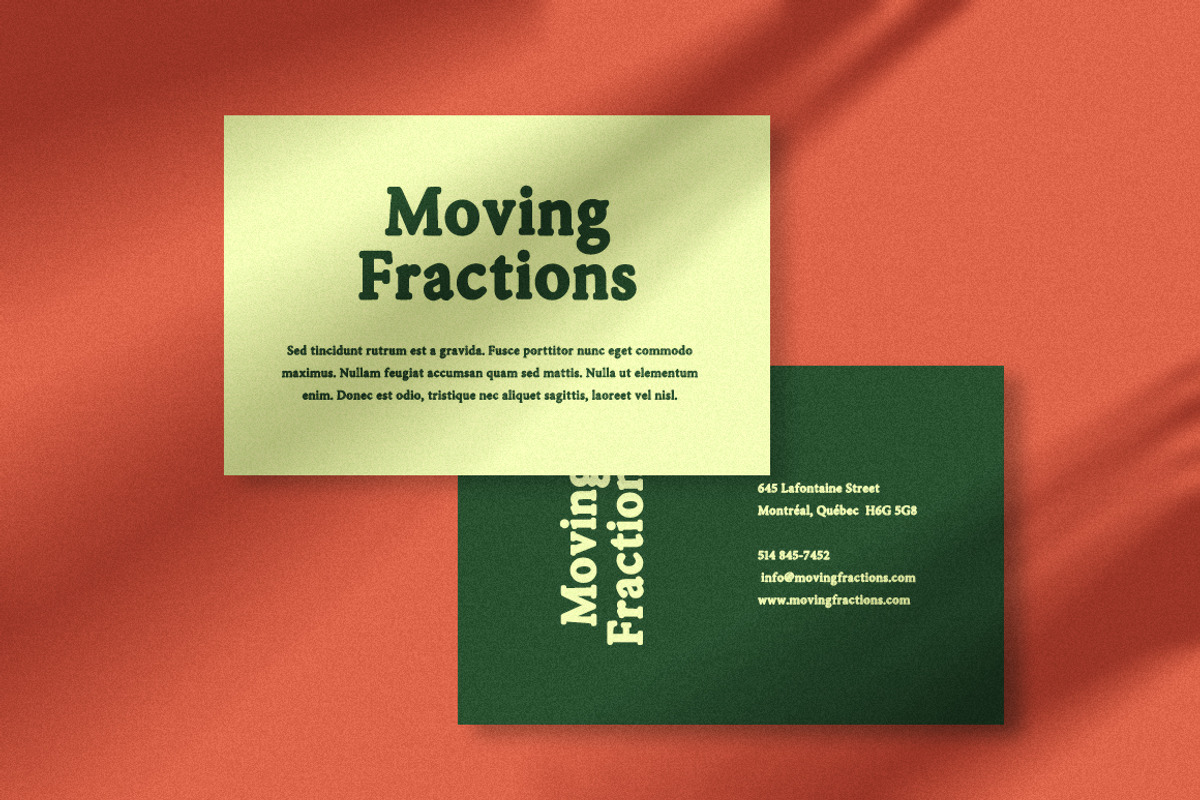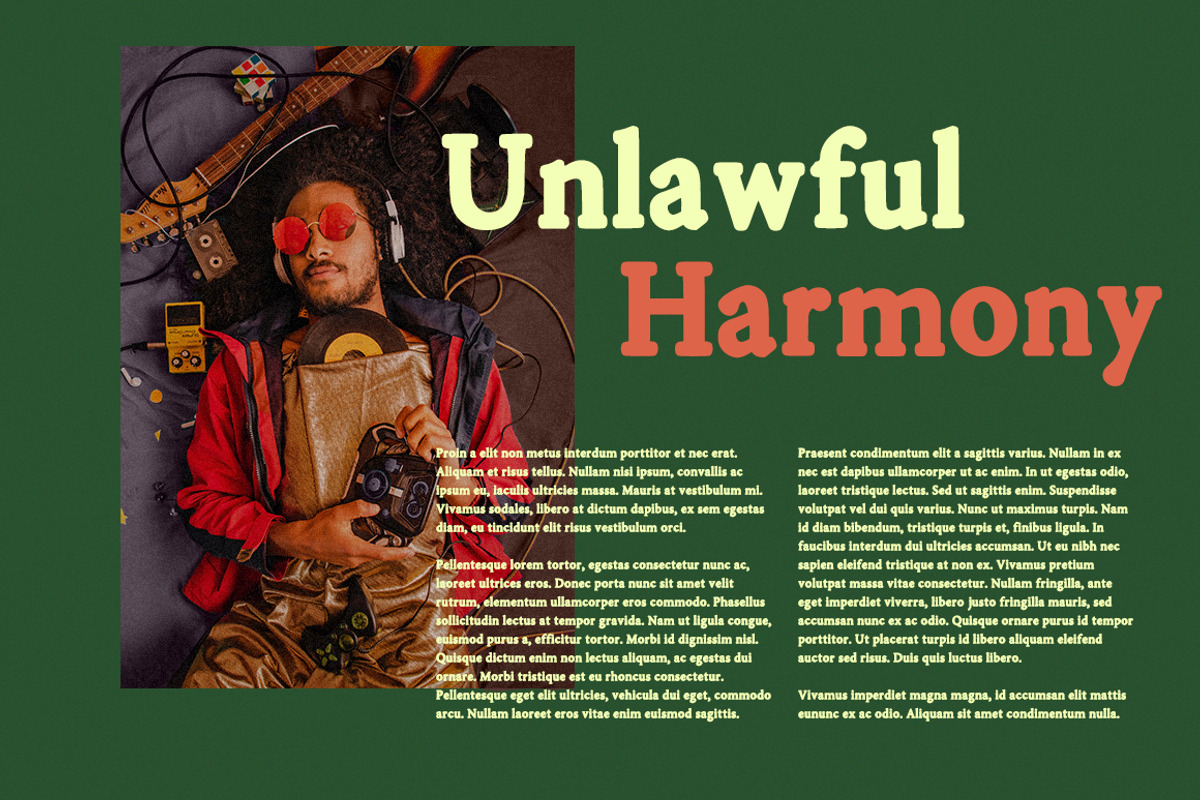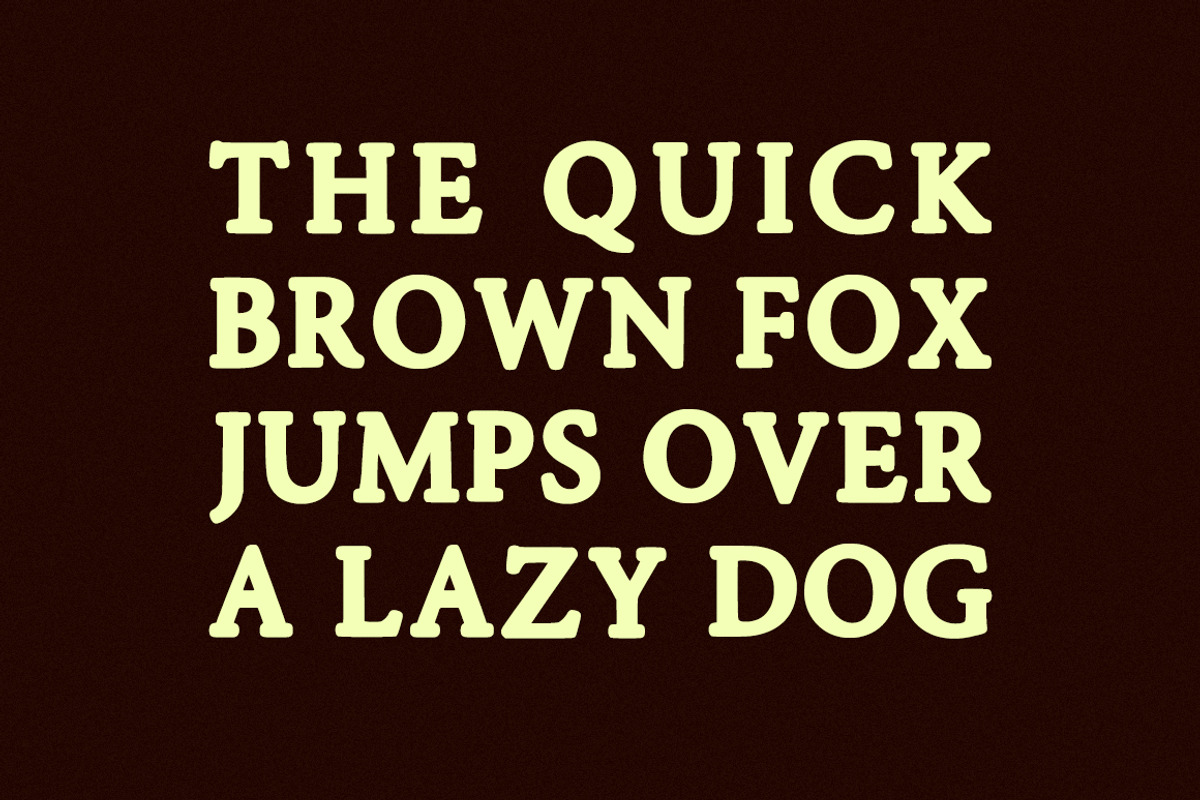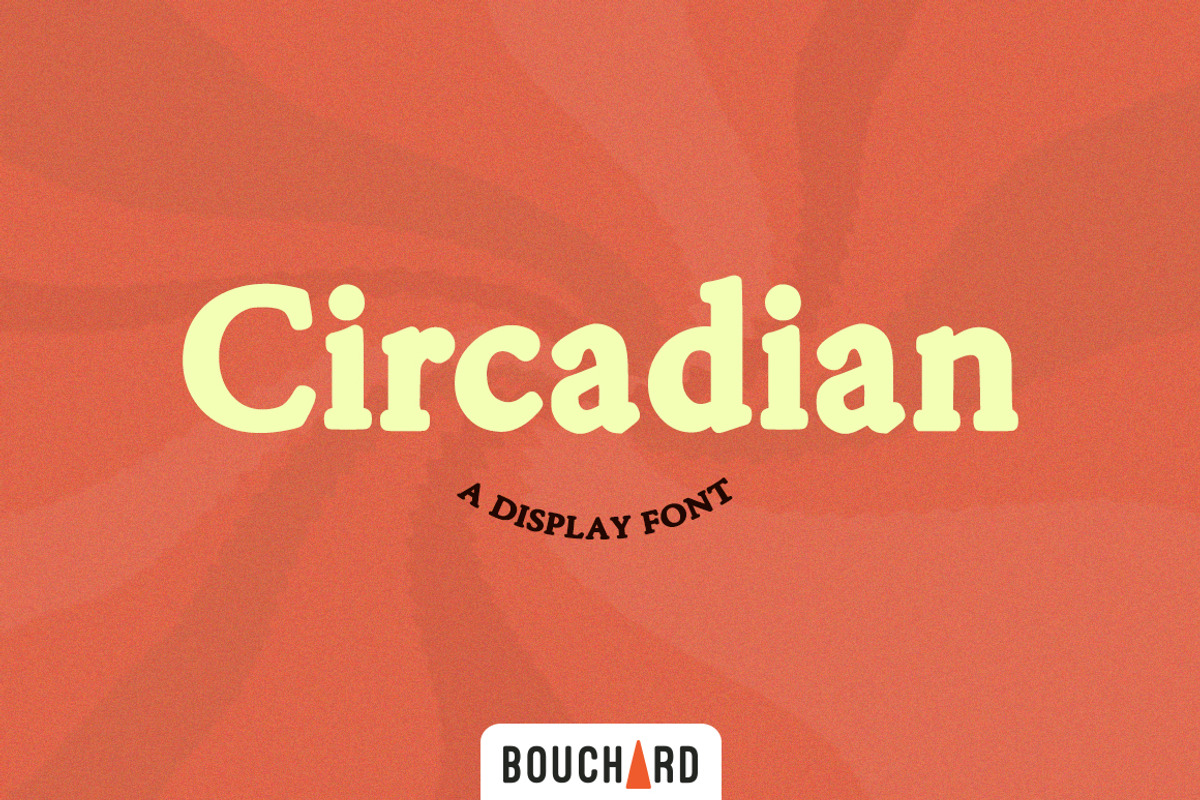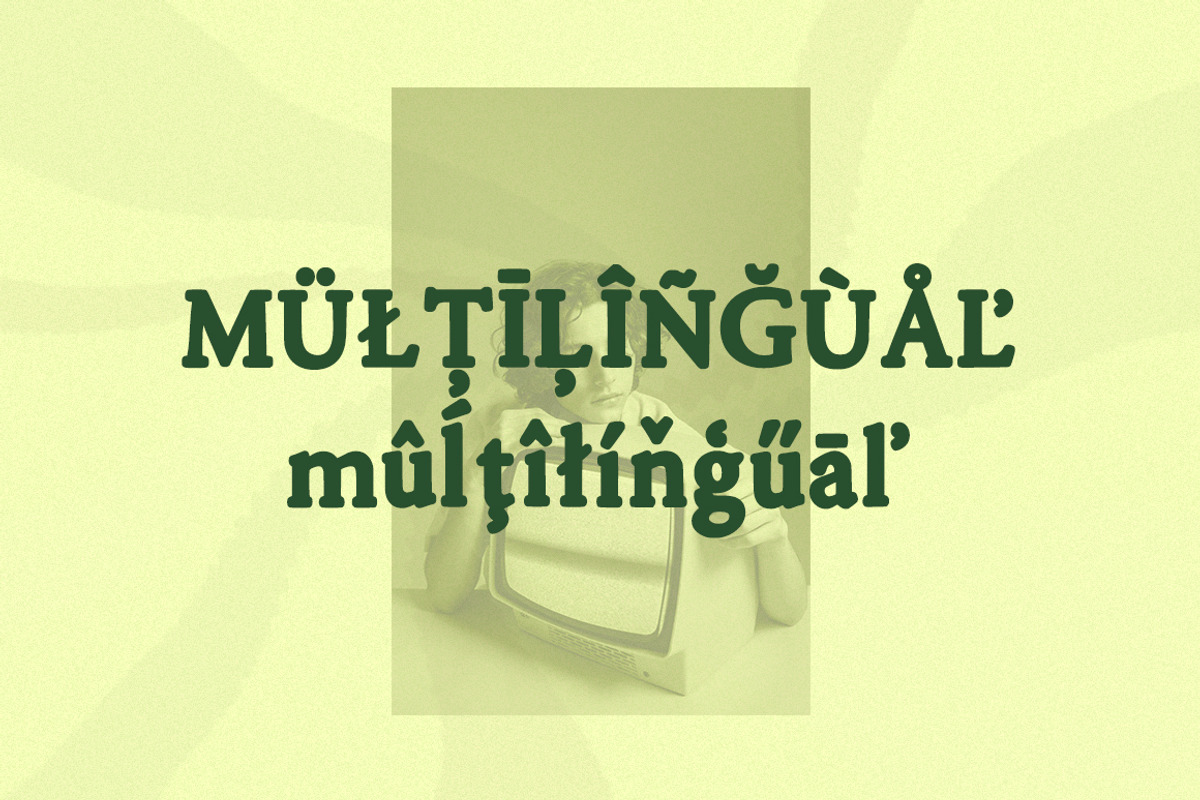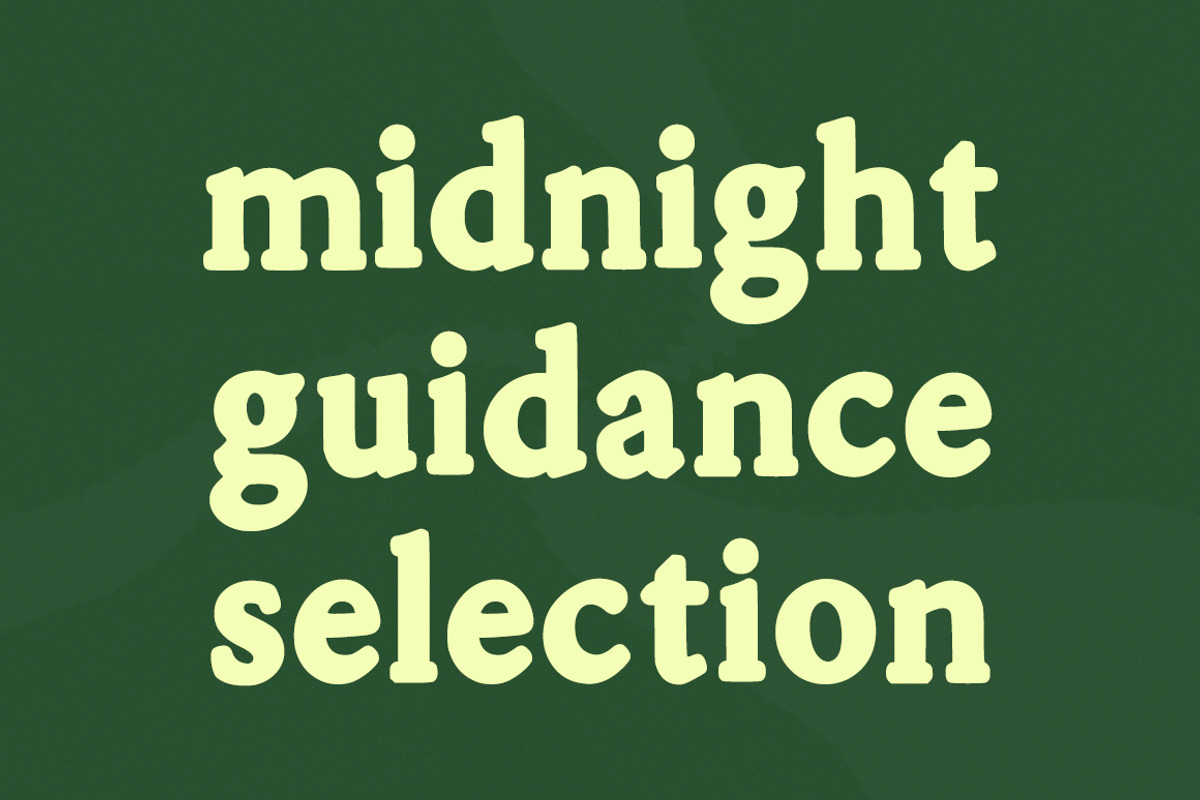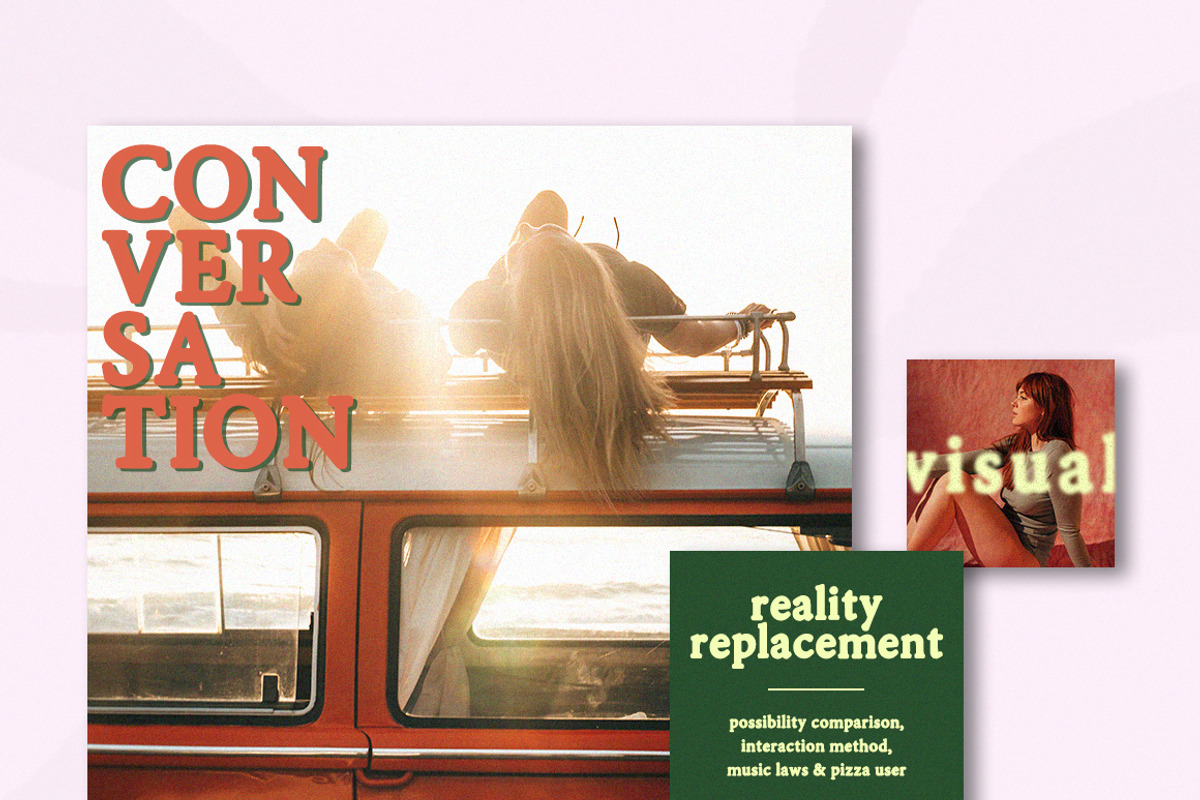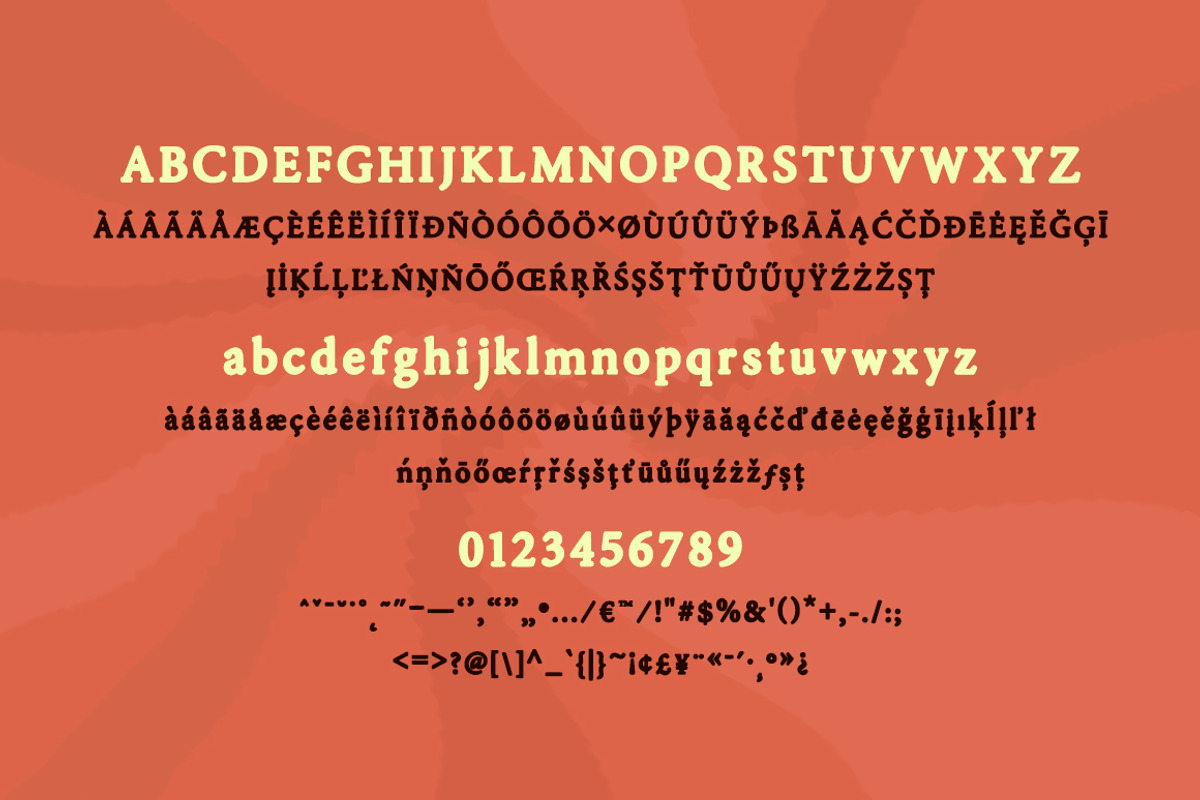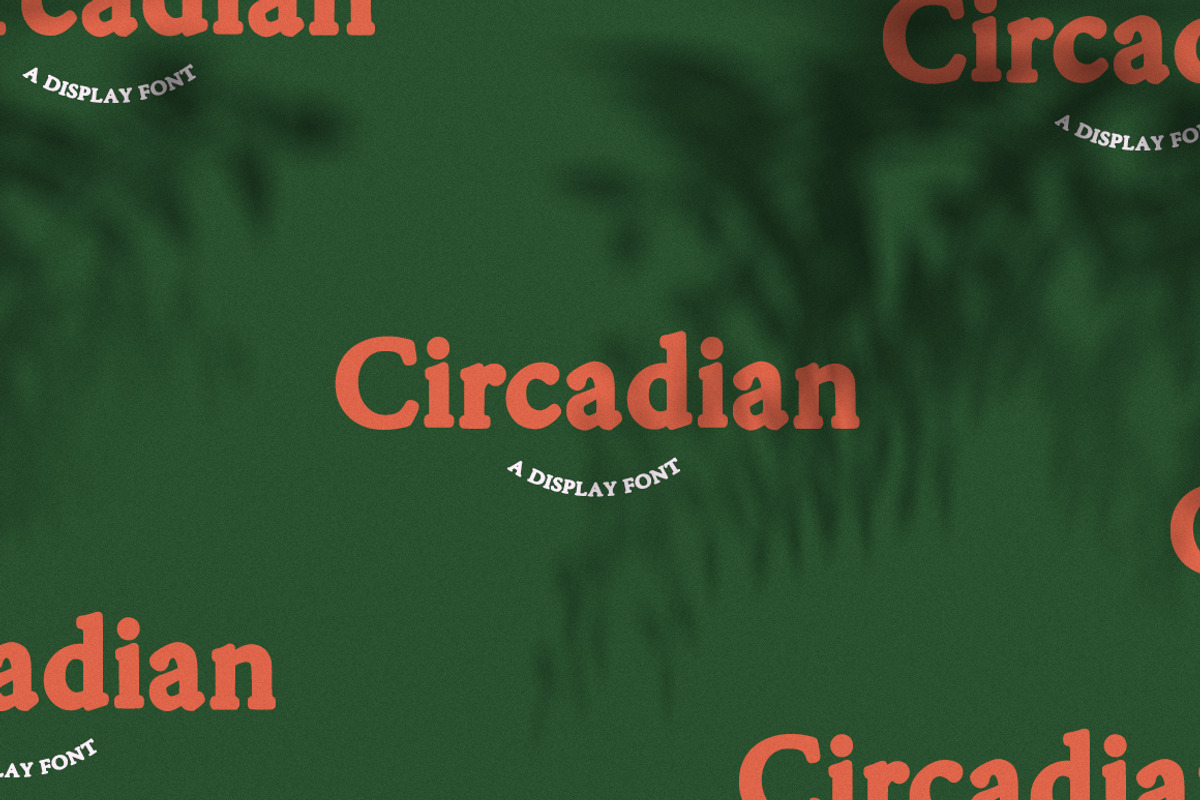
Circadian
Circadian is a vintage-inspired display font that comes in uppercase and lower case and includes accents, numbers and punctuation.
Perfect for logo designs, packaging, book covers or any other designs that benefit from bold headings.